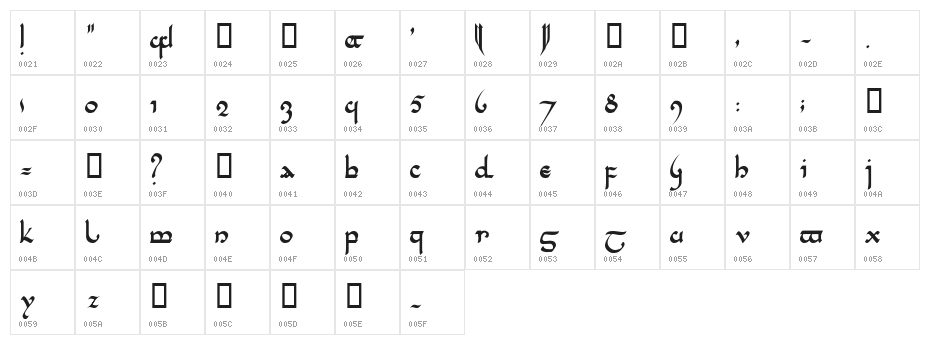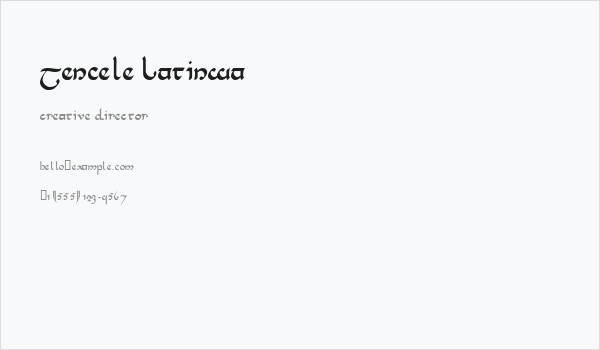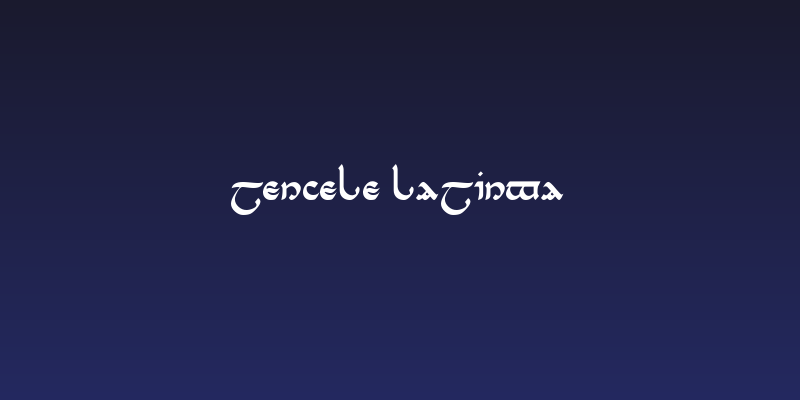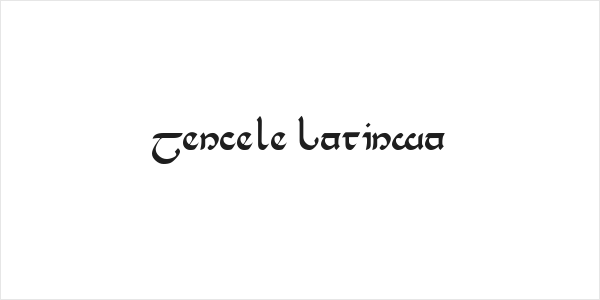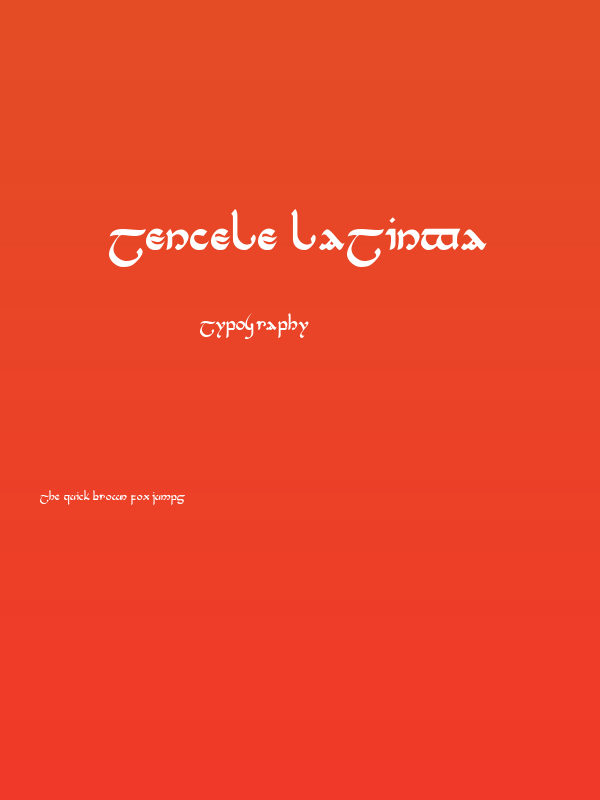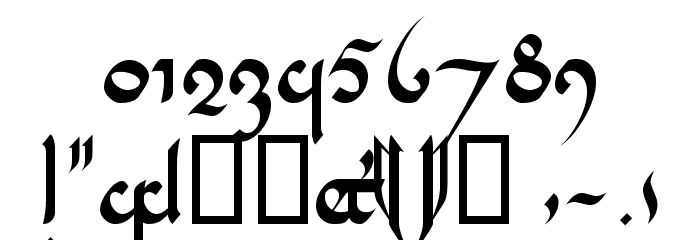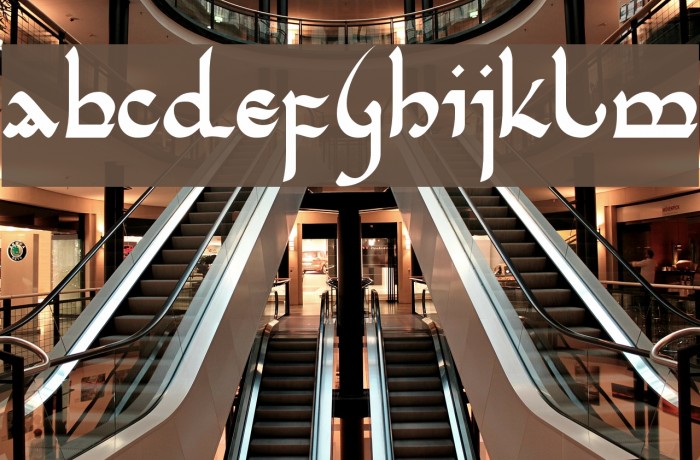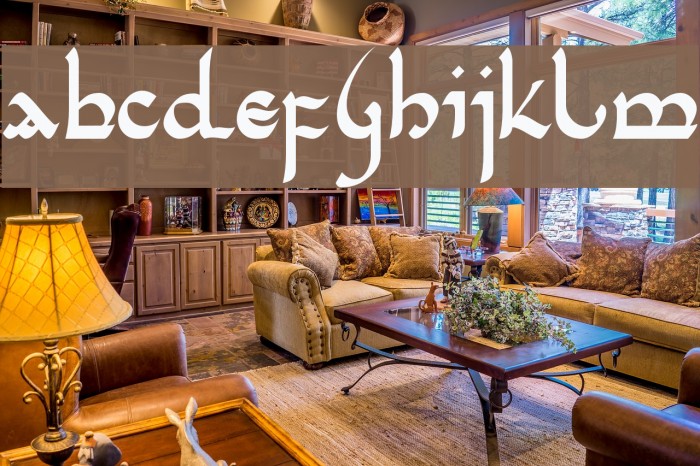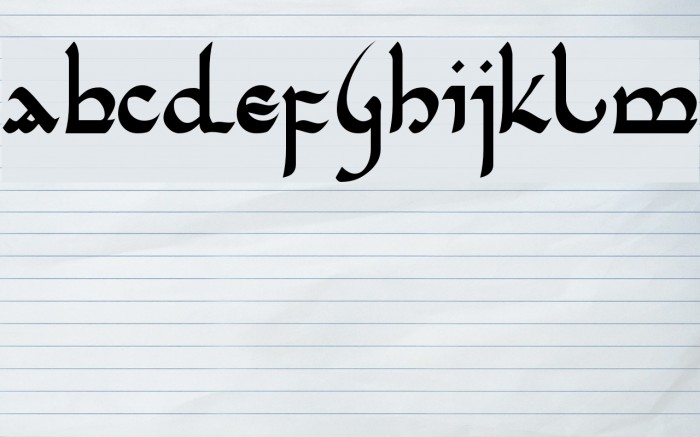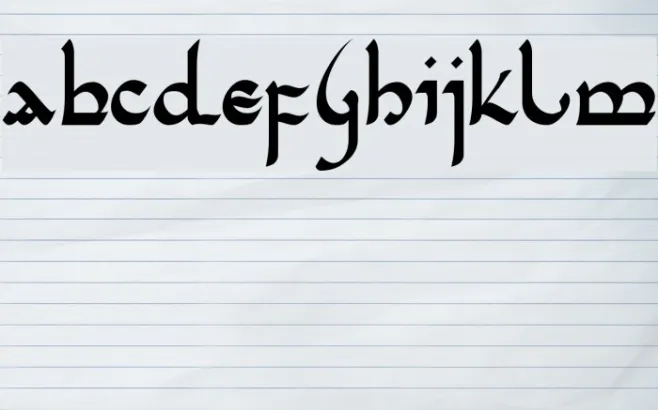
Tencele Latinwa Font
Tencele Latinwa Description
This font features a unique and artistic design with a calligraphic flair. The characters have a medieval, gothic appearance, characterized by sharp, angular strokes and a distinct flow. The uppercase and lowercase letters maintain a consistent style, with elongated and pointed serifs that add to the font's dramatic and decorative nature. The numerals and special characters follow the same stylistic cues, ensuring a cohesive look across all elements. This font's intricate design makes it stand out, offering a blend of historical and artistic elements that can enhance visual appeal.
| Overall Style | Gothic, Decorative |
| Use Case | Headlines, Logos, Decorative text |
| Proposed Projects | Ideal for projects requiring a medieval or fantasy theme, such as book covers, posters, or themed event invitations. |